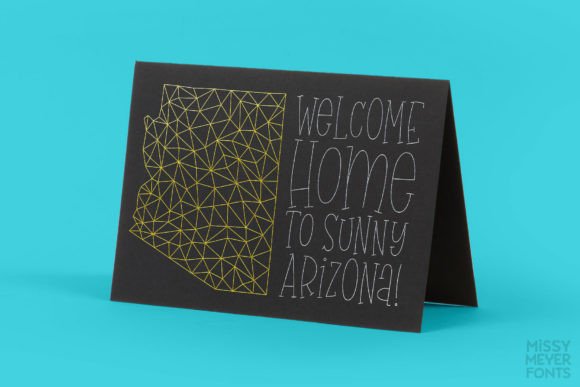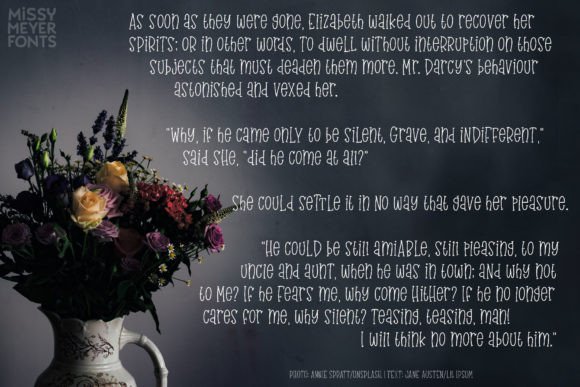
Garruline (single Line) Font
It’s GarruLine! I’ve taken my fun hand-written serif font Garrulous and converted it to single-line format! It has all the same features, but in a style built for sketch pens, scoring, foil quill, engraving, embossing, lasers, infusible ink pens, and more!
GarruLine has two uppercase-height alphabets (with many lowercase-style letters in the lowercase set), plus 30 double-letter ligature sets for that hand-written look! You also get a ton of punctuation, and my usual 300+ extended Latin characters for language support, for a total of over 530 glyphs.